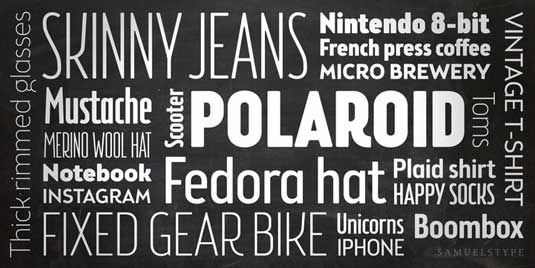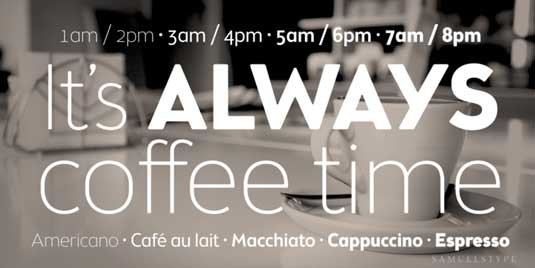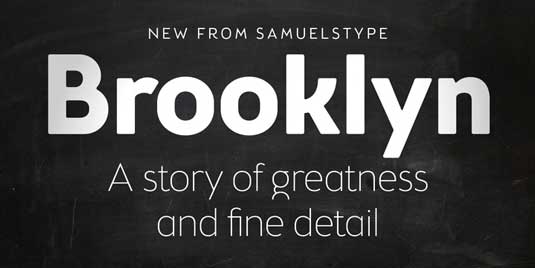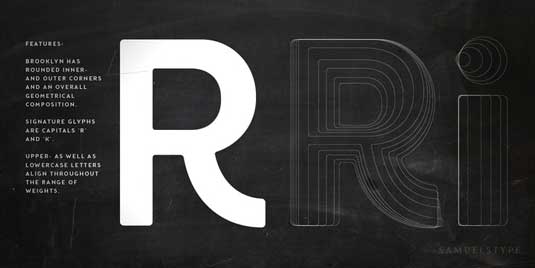
Font of the day: Brooklyn Samuels
Brooklyn Samuels by Hans Samuelson
Today's typeface of choice is sans serif Brooklyn Samuels, created by Stockholm-based type designer Hans Samuelson. Available from MyFonts, the font is described as being 'based on geometrical shapes, intended primarily for headline use but also offers excellent legibility in small sizes'.